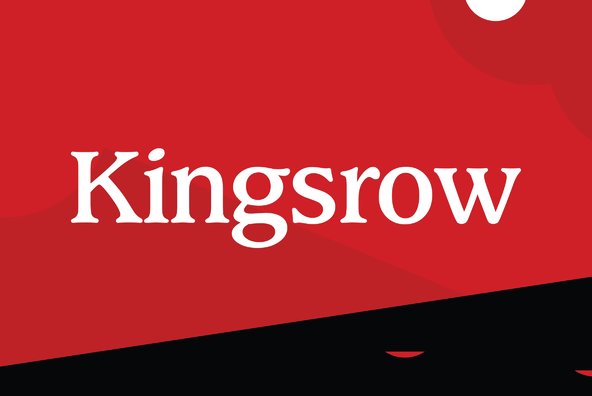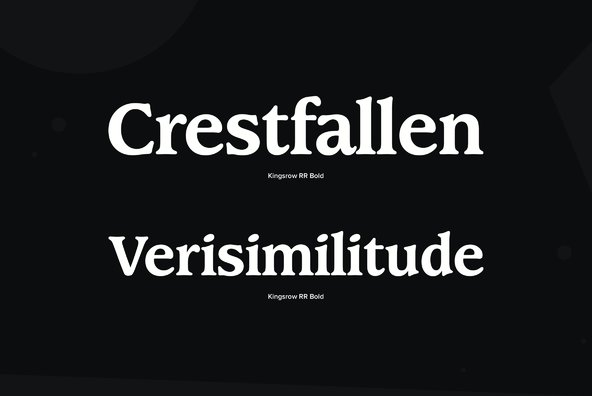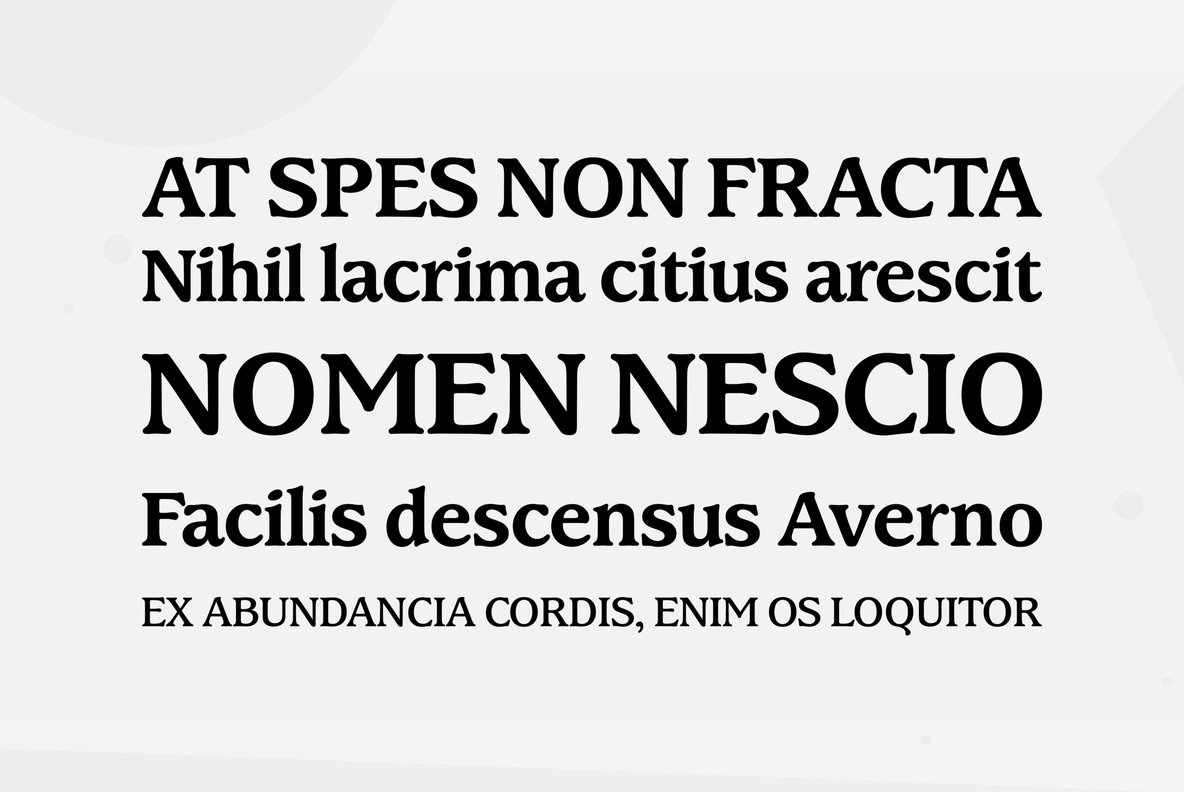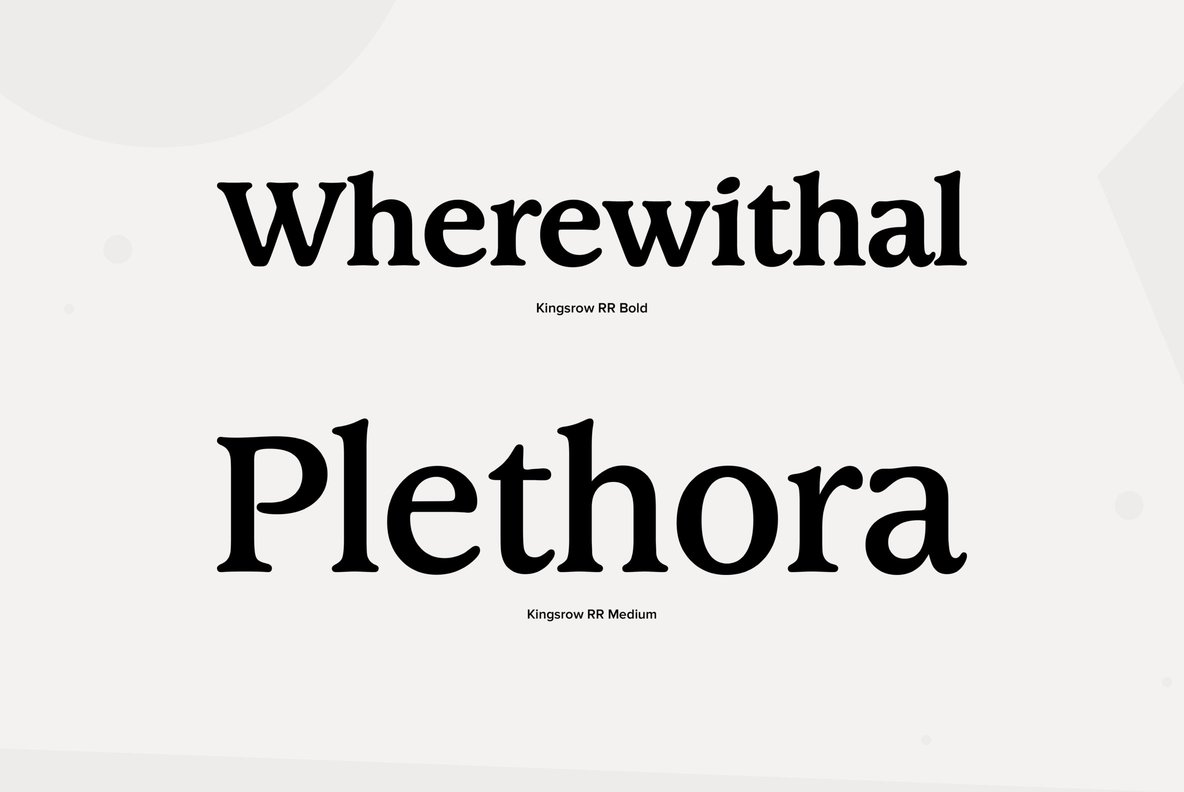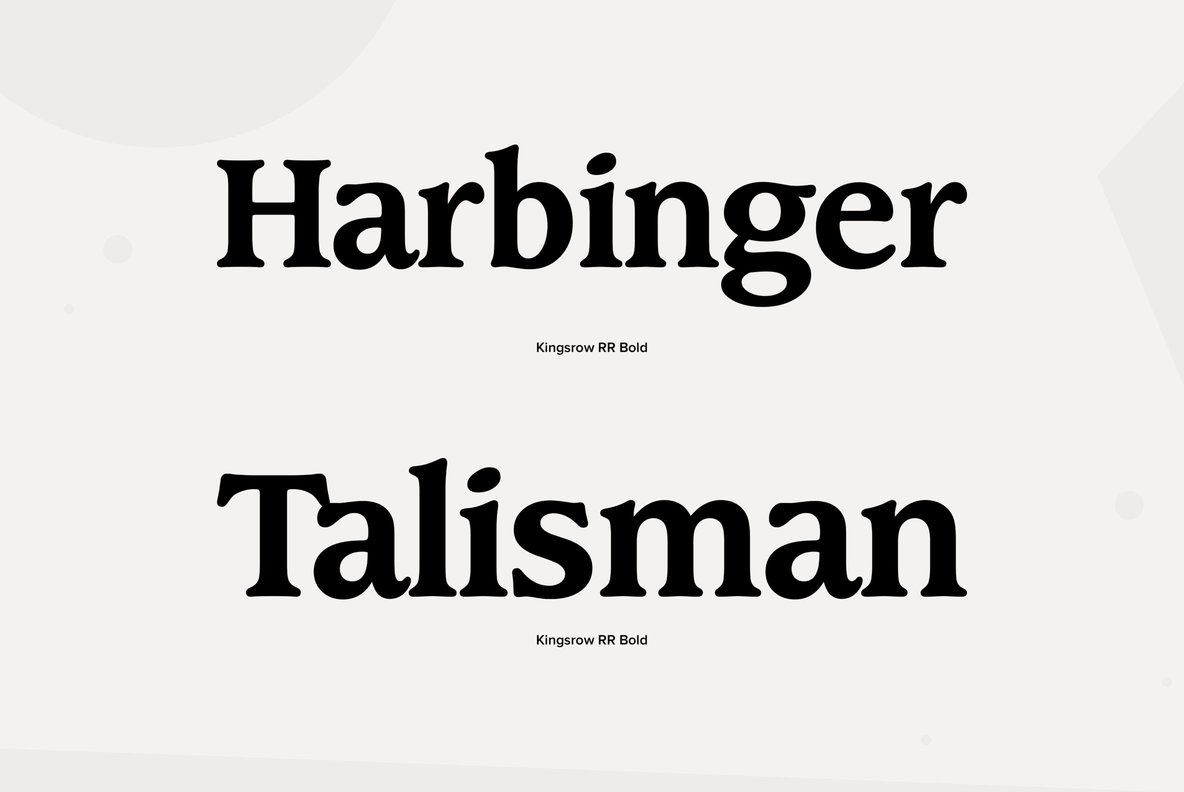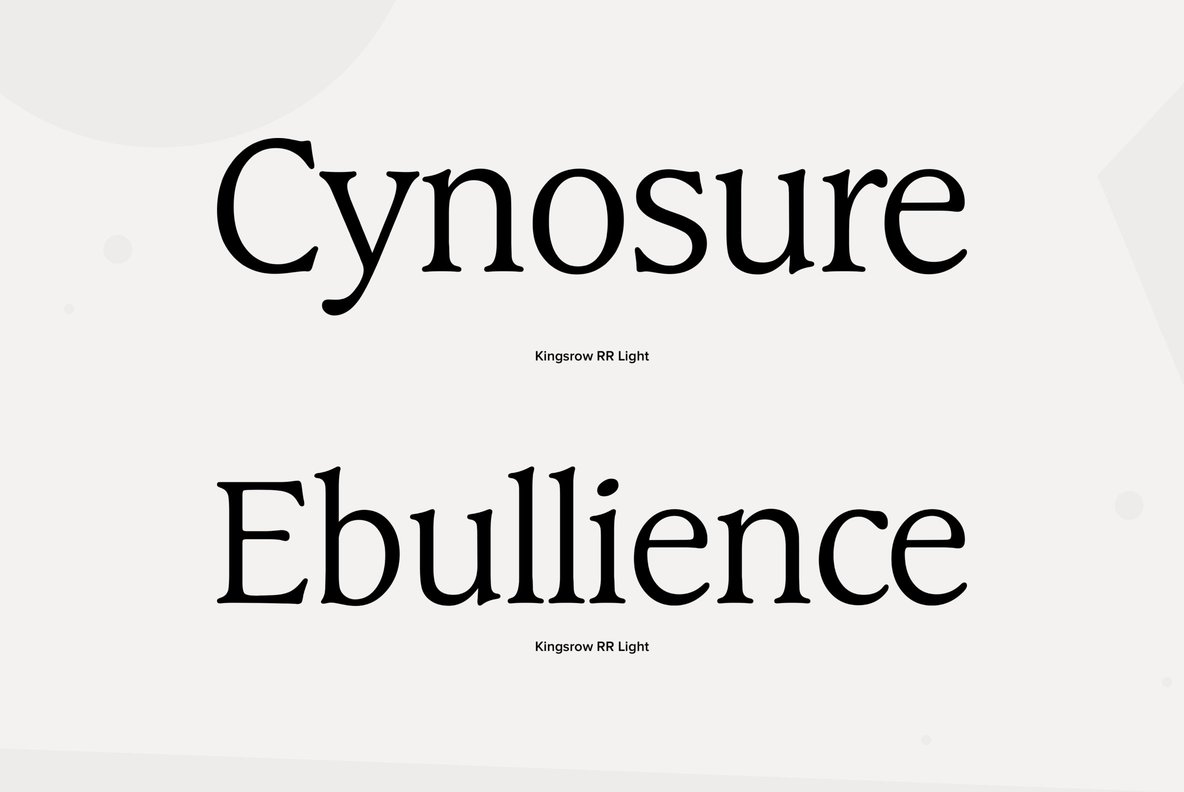
Kingsrow
Designed by Les Usherwood. Digitally engineered by Steve Jackaman. Unofficially named No Frills in the early stages of development, his widow Elsie decided that it would be called Kingsrow.